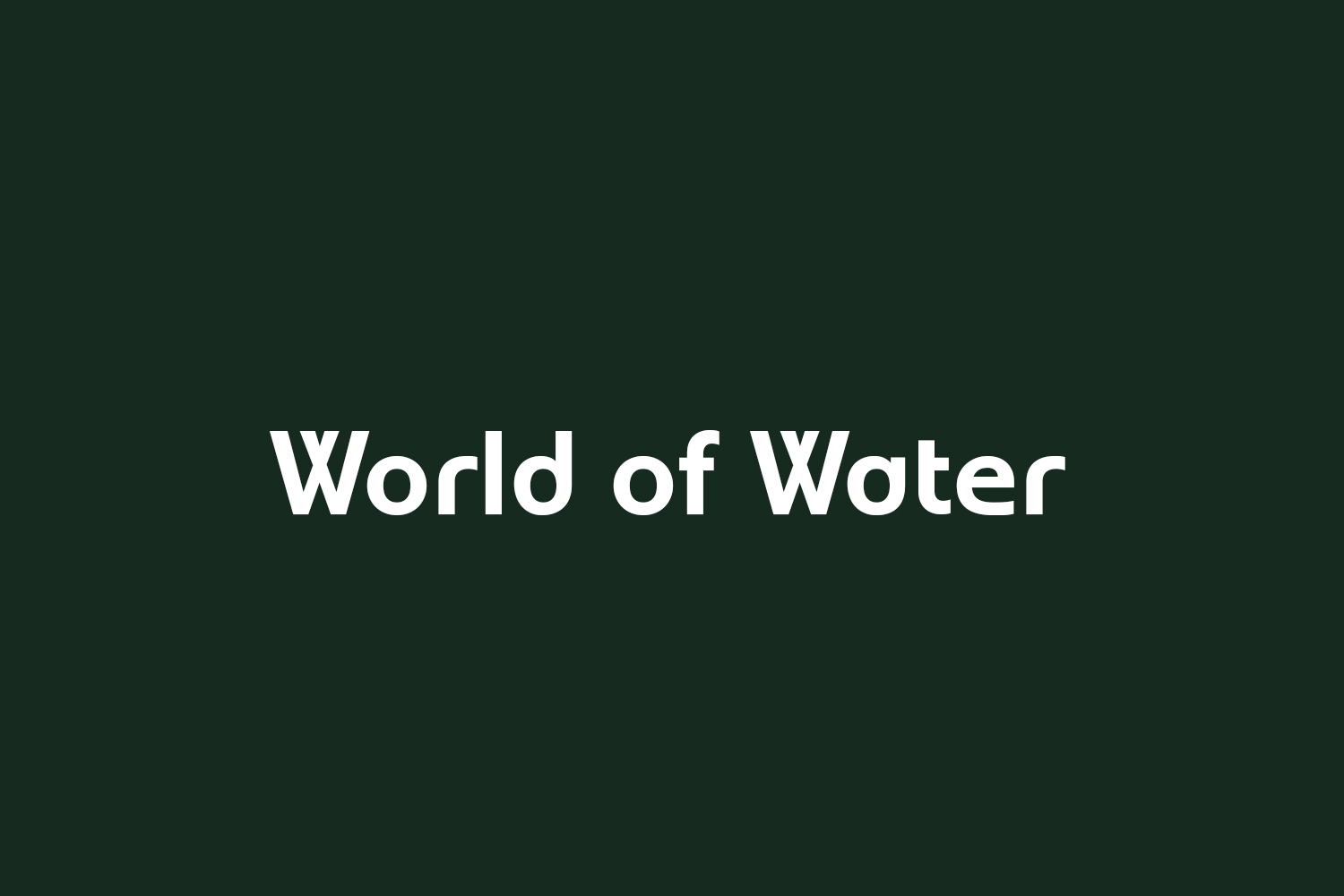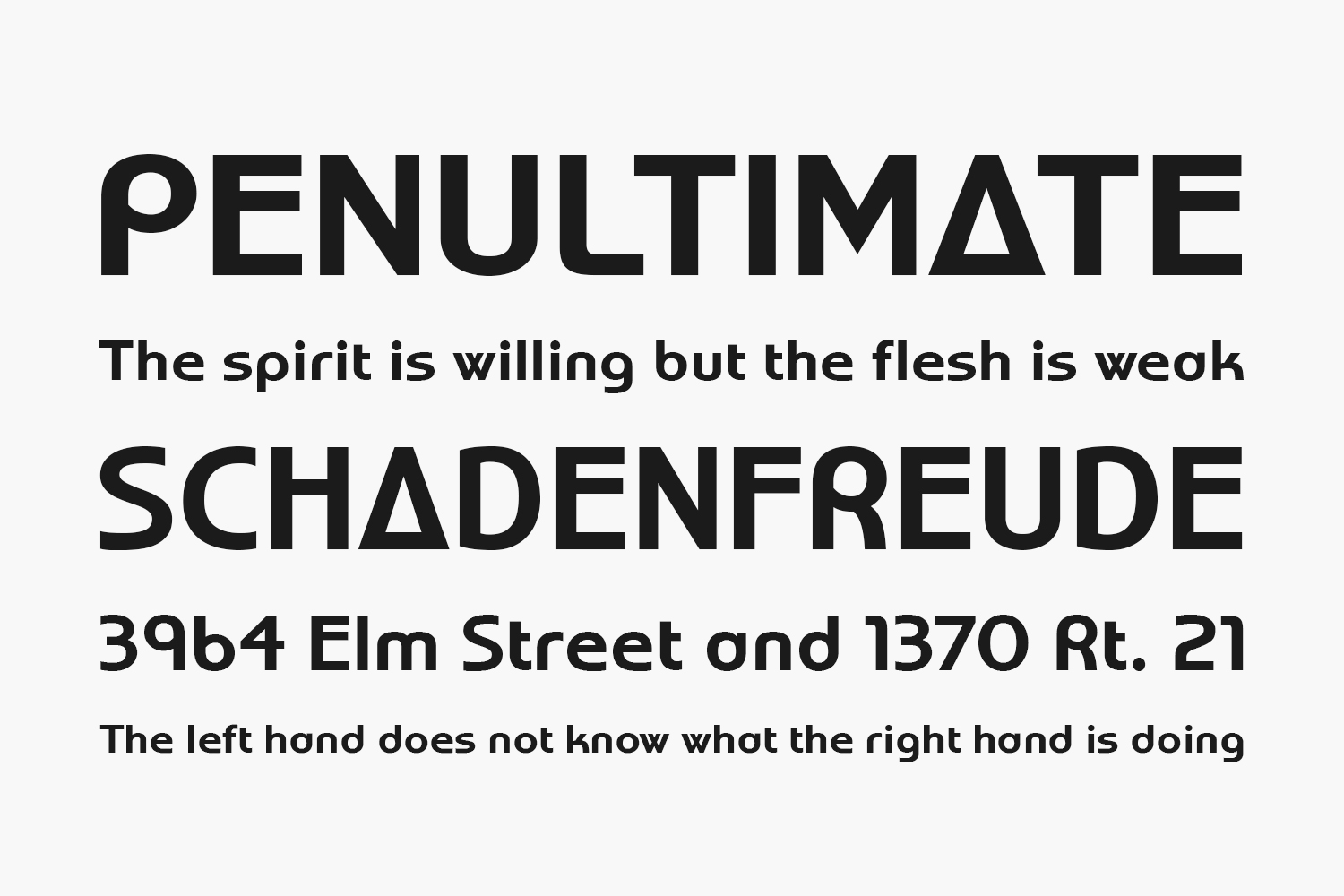
World of Water Free Font is an alt-universe, Art Nouveau display font, or whatever. This new version of World of Water has been almost completely redrawn. Spacing and kerning are all new. Accents have been redesigned and more languages are supported. Lots of punctuation and math symbols have been added, as well as fractions and numeric ordinals. In OpenType savvy applications, you can now access an alternate capital O plus accented versions; in older applications, you can substitute O with zero. Vertical metrics setting has been improved for better web browser performance.